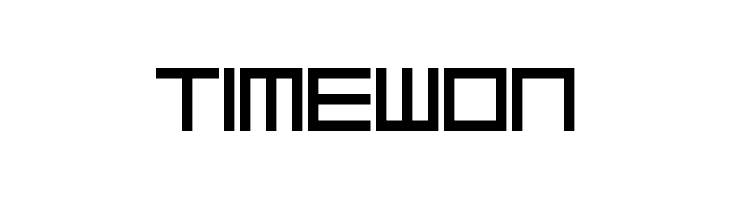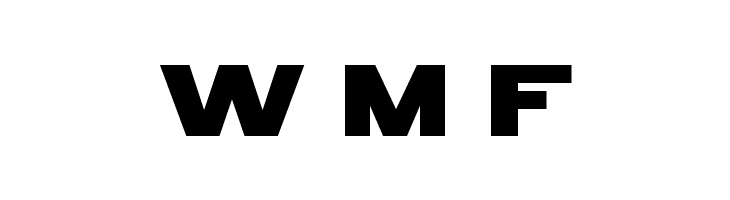
A playful, informal handwritten font with a dynamic and lively feel.
A playful, bubbly font with rounded, thick strokes and a whimsical touch.
A sophisticated serif font with a playful twist, ideal for versatile applications.
A futuristic, geometric font with sharp angles and a bold, tech-inspired design.
A geometric, blocky font with a futuristic, digital appearance.
A bold, graffiti-inspired font with dynamic and energetic characters.
A bold, artistic cursive font with dynamic strokes and expressive flair.
A bold and expressive script font with a modern, handwritten style.
A modern, geometric outline font with an italic slant.